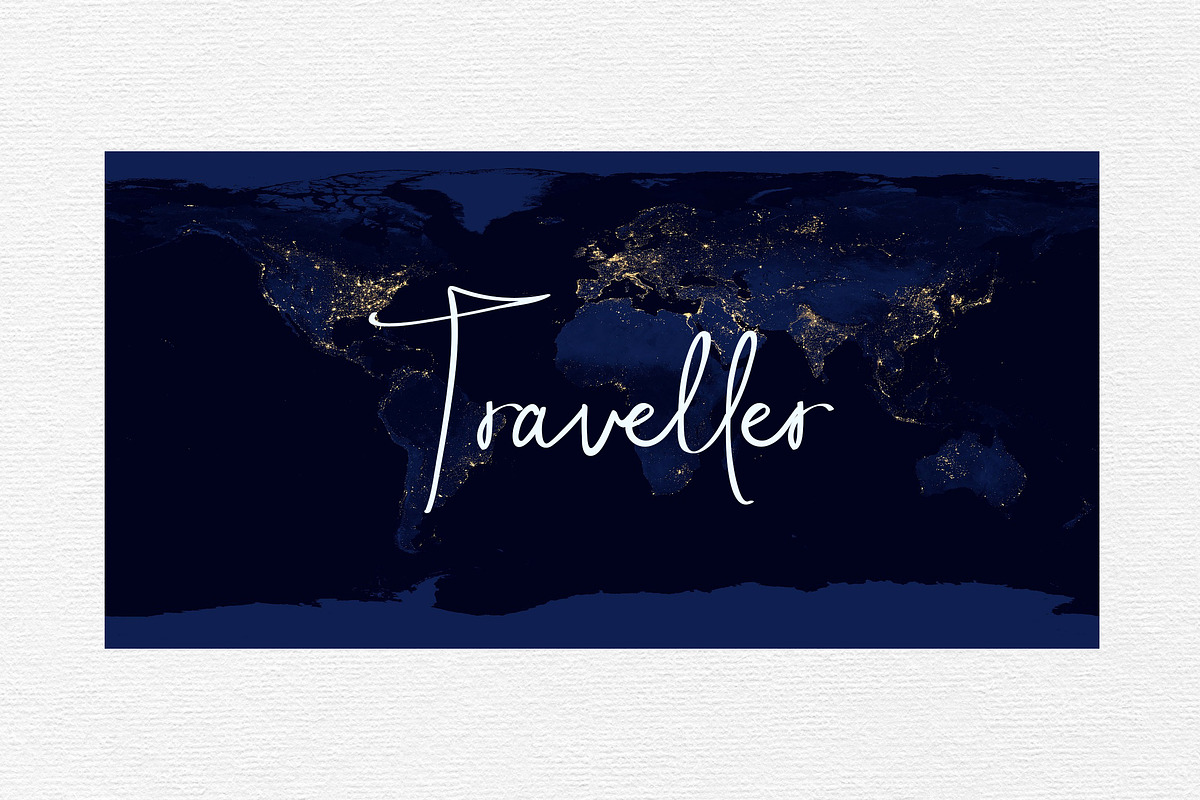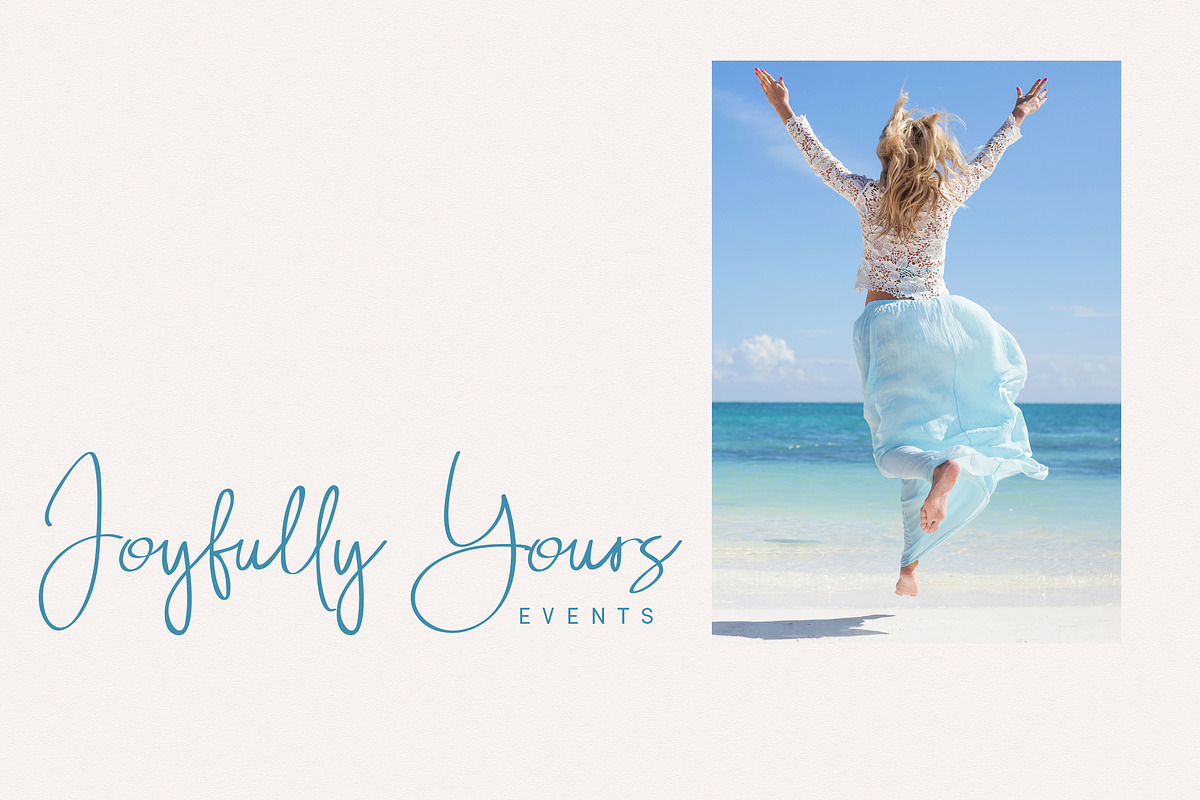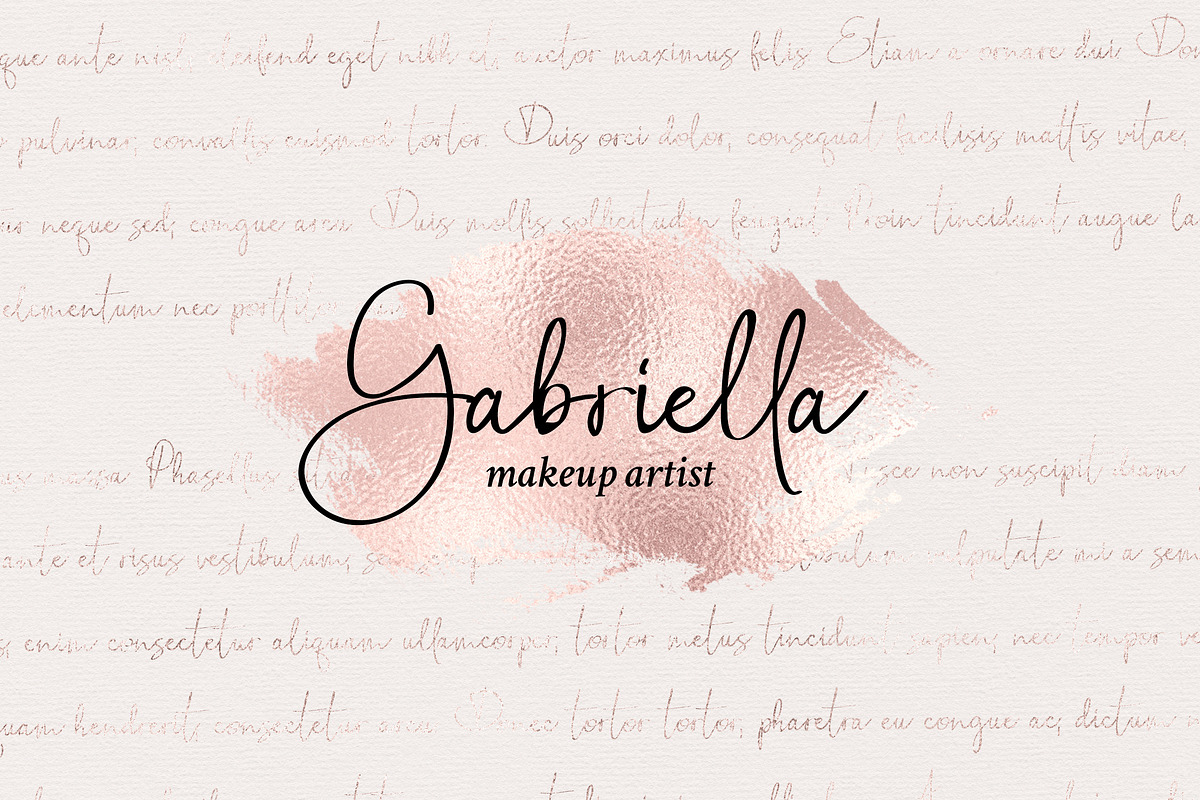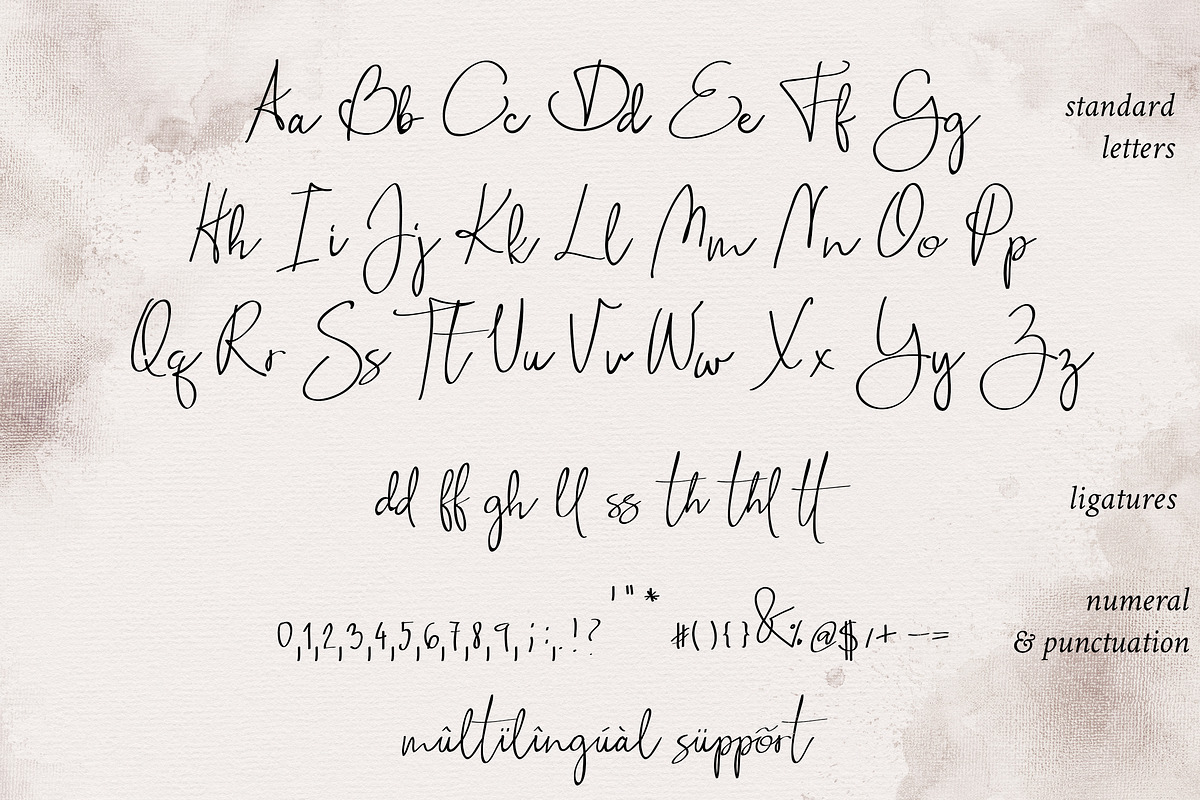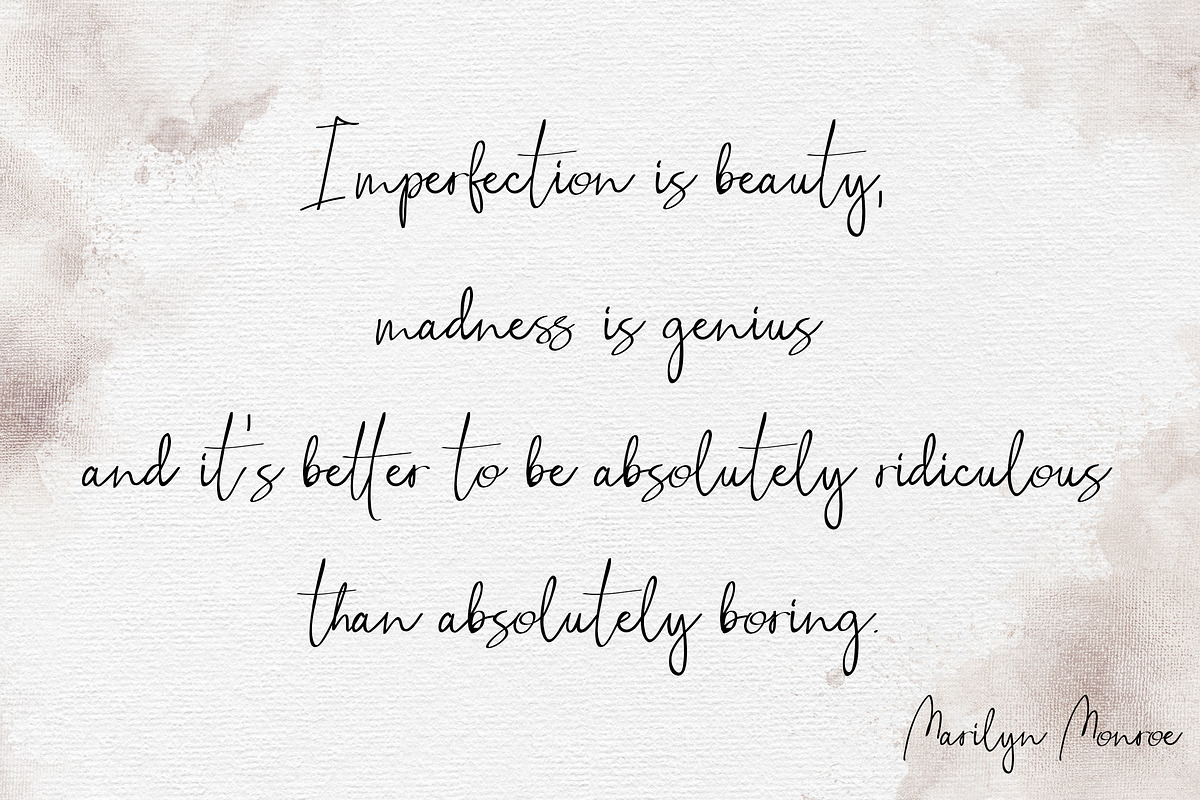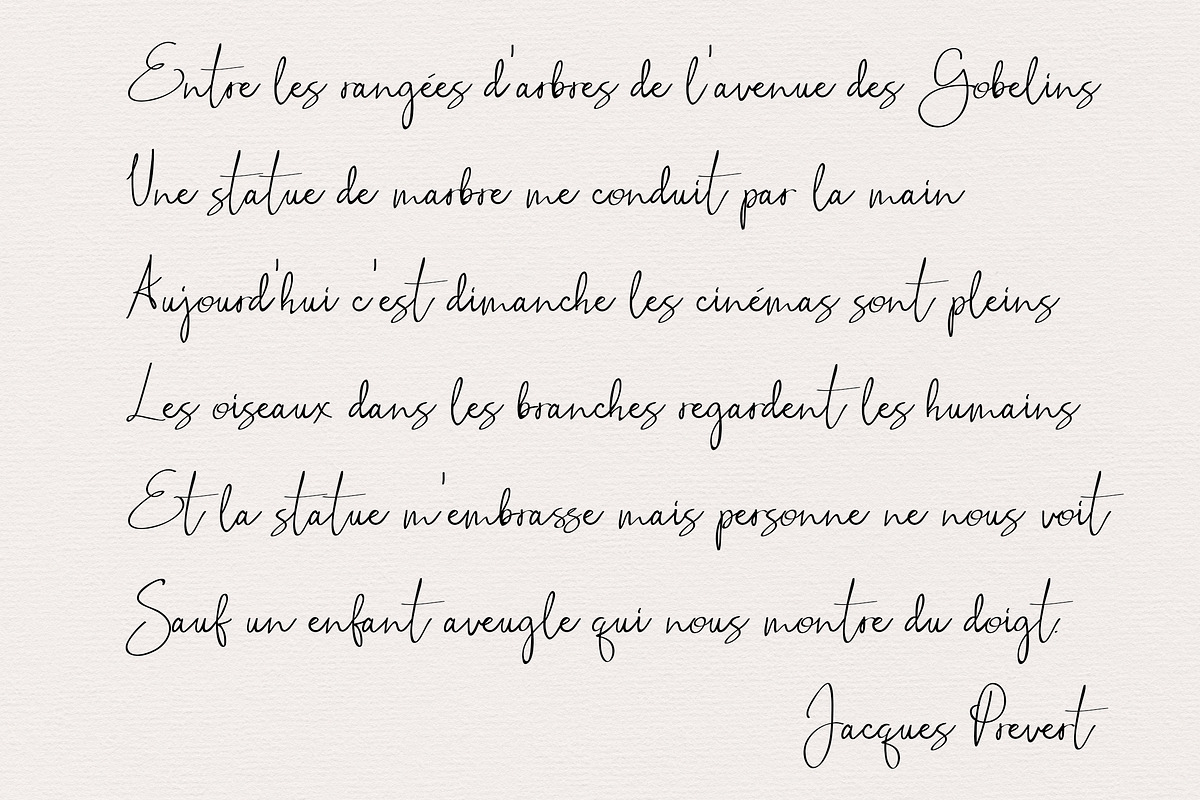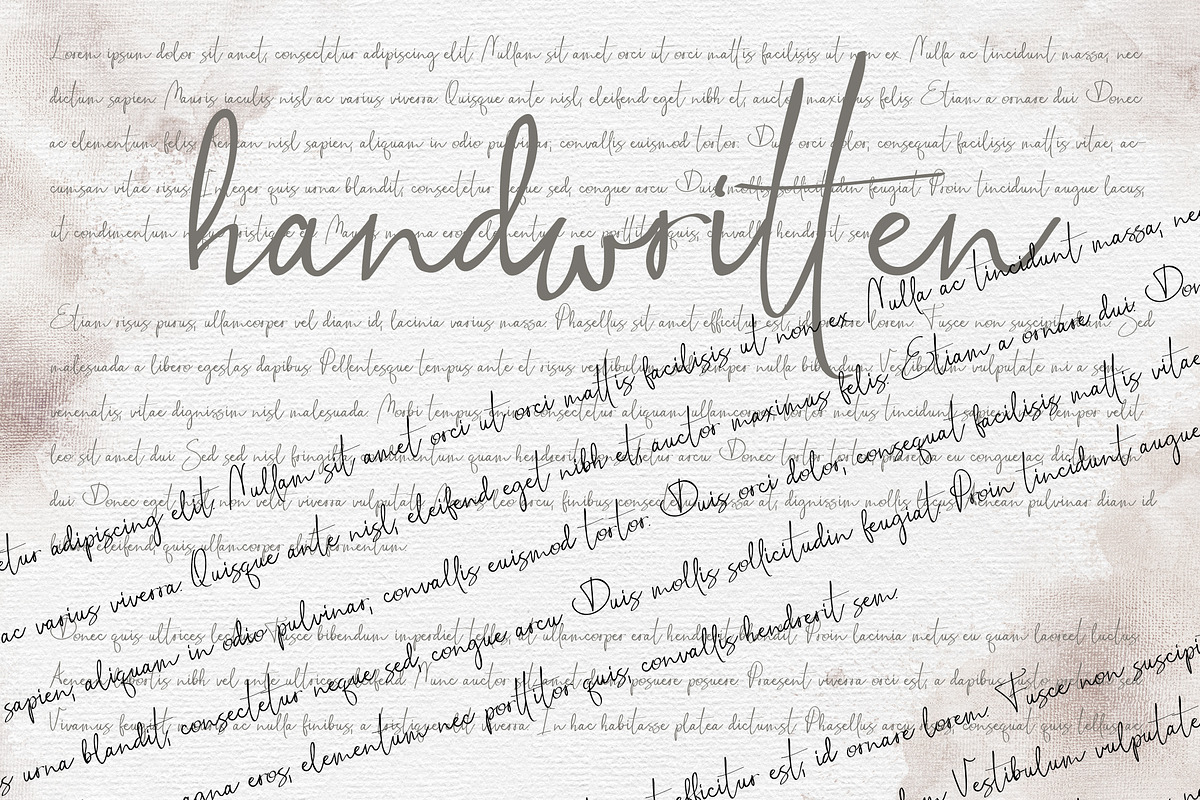
Stillness Handwritten Script Font
Hi, and thanks for stopping by! I'm introducing the new hand lettered font from Savanamm Design, Stillness Script Font with a real handwritten feel. Ideal for branding material, logos, modern wedding invitations... I recommend installing the .OTF version and you can start using the font. In case you have the programs that don’t support the open type files, install the .TTF version.
Why Stillness Handwritten Script Font is worth a look
Stillness Handwritten Script Font by savanamm design fits naturally into Branding, posters, packaging, typography.